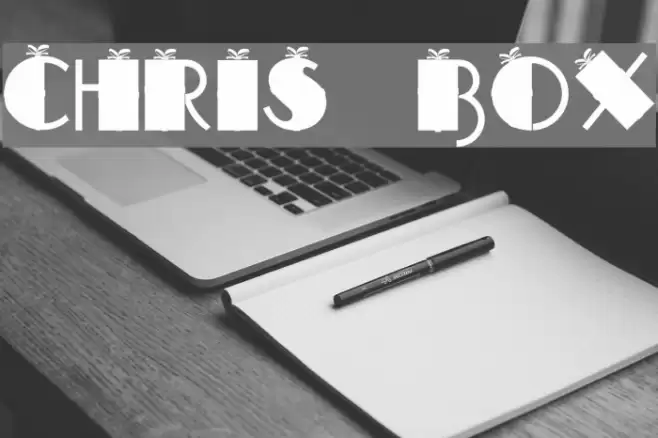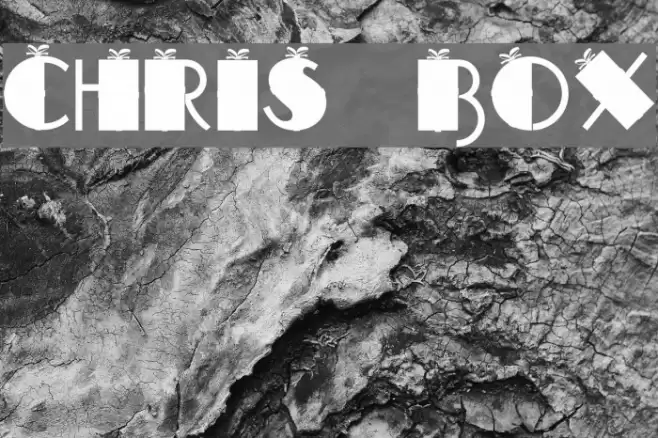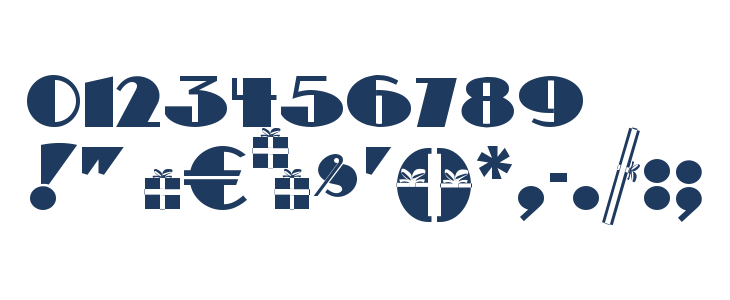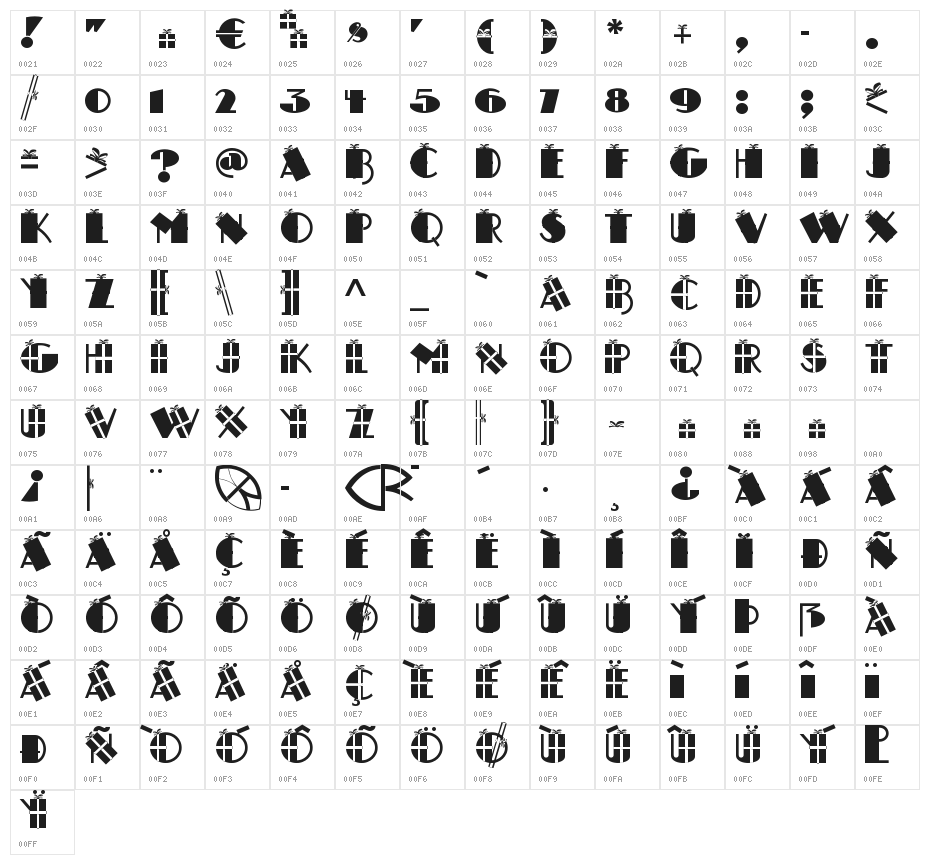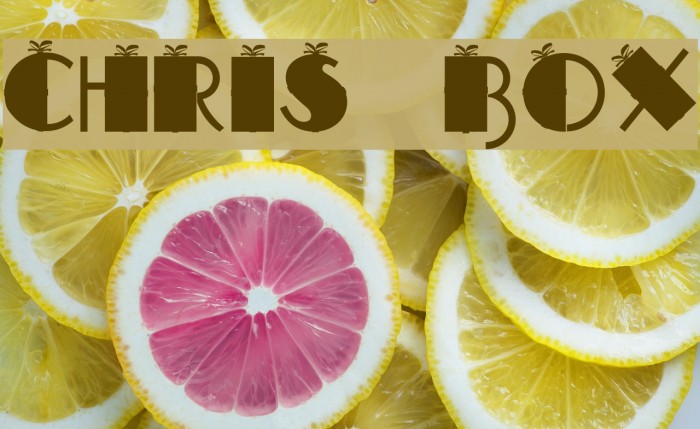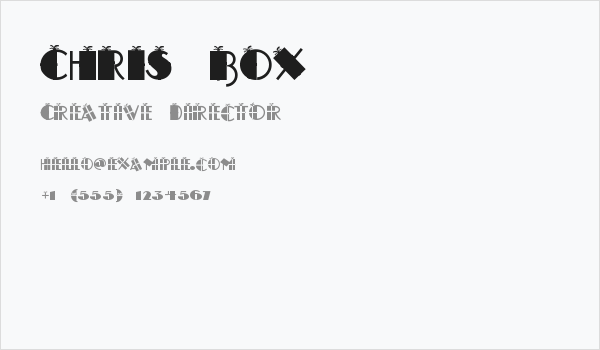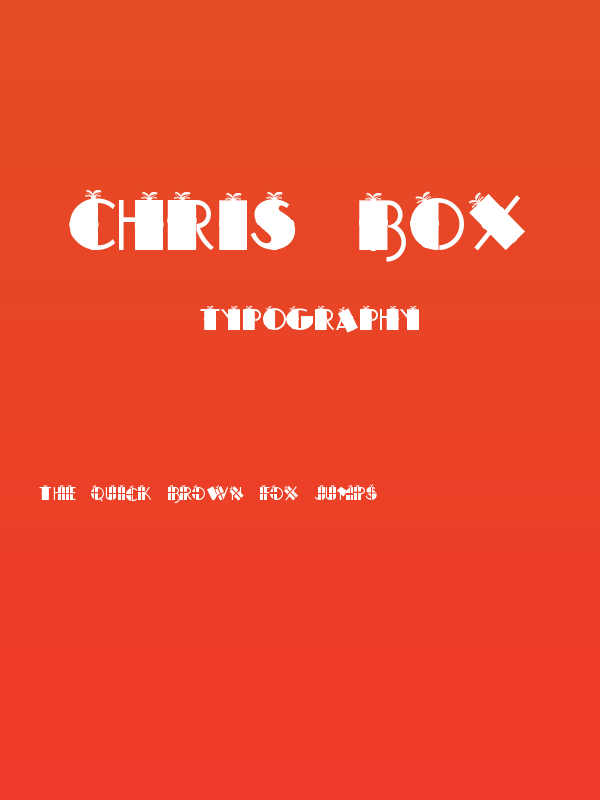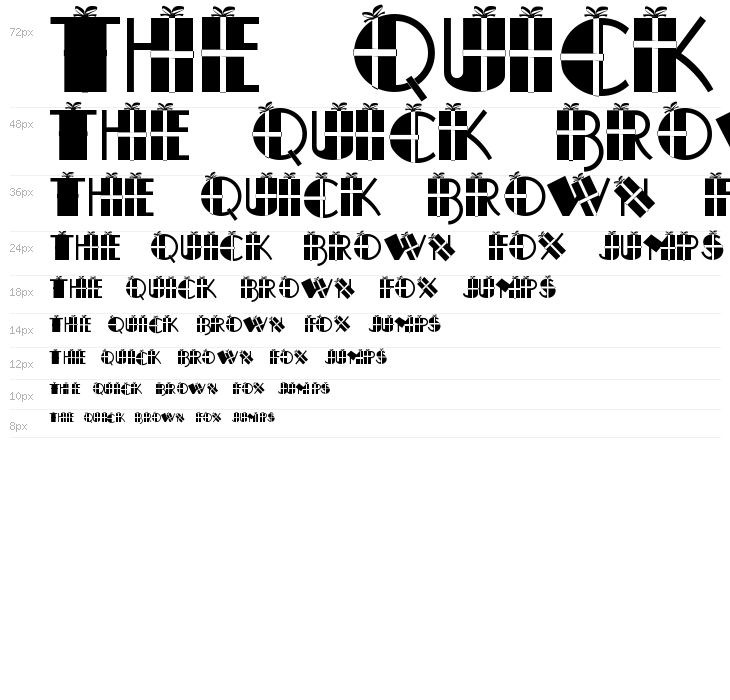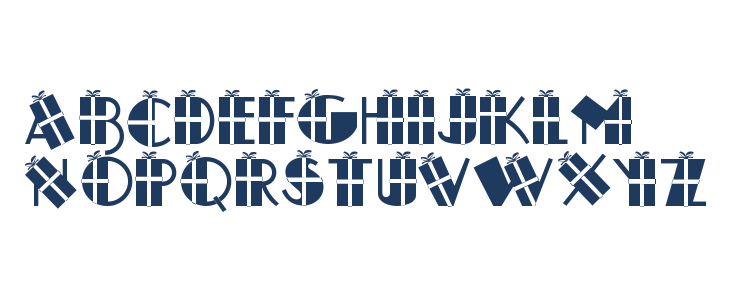
CHRIS BOX Font
CHRIS BOX Description
This font features a playful and festive design, with each character resembling a gift box. The letters are bold and geometric, with a distinct ribbon-like element on top, adding a whimsical touch. The uppercase and lowercase letters maintain a consistent style, with clean lines and solid fills. Numbers and special characters follow the same theme, ensuring uniformity across all glyphs. The overall design is eye-catching and unique, making it ideal for holiday-themed projects or any design that requires a fun and celebratory feel.
A festive, gift box-themed font with bold, geometric characters and ribbon accents from Uncategorized fonts.
- Proposed Projects: Ideal for holiday cards, festive banners, party invitations, and playful branding projects.